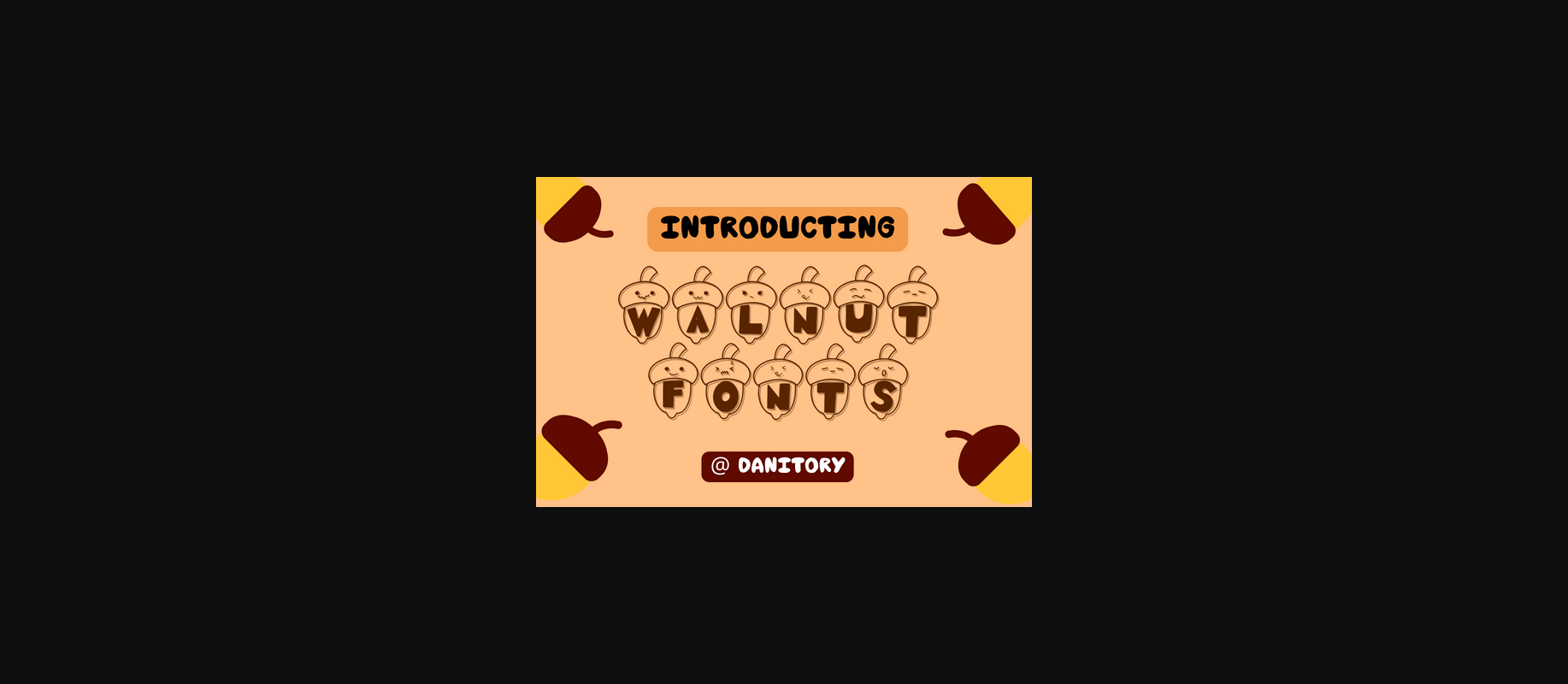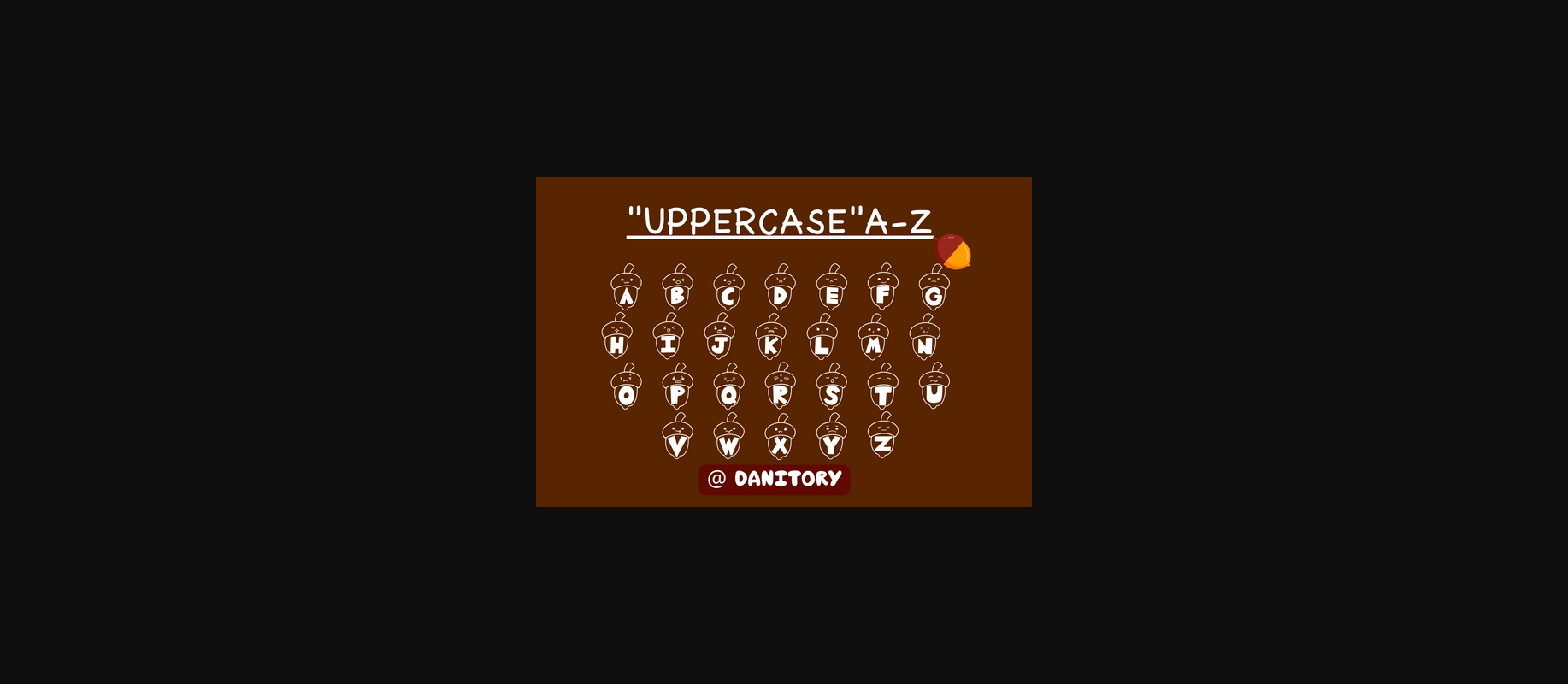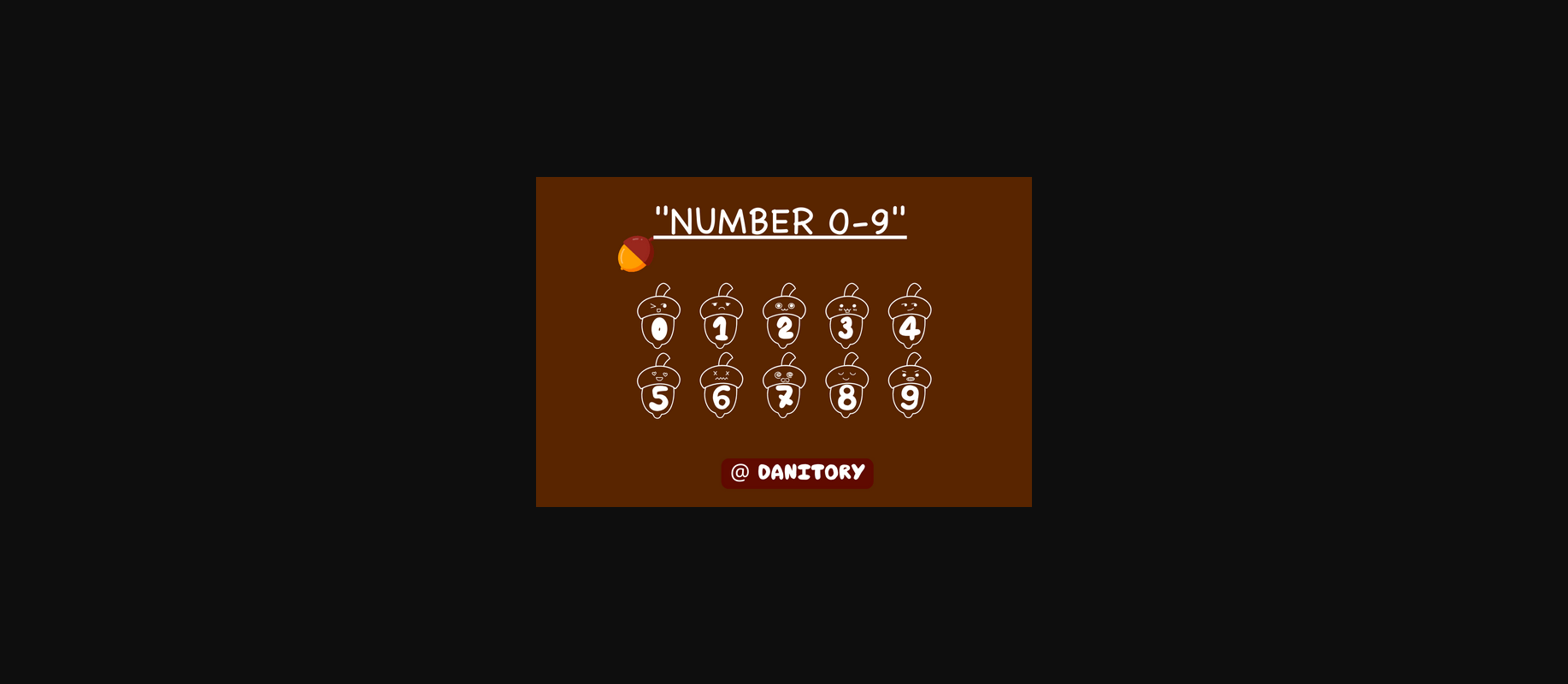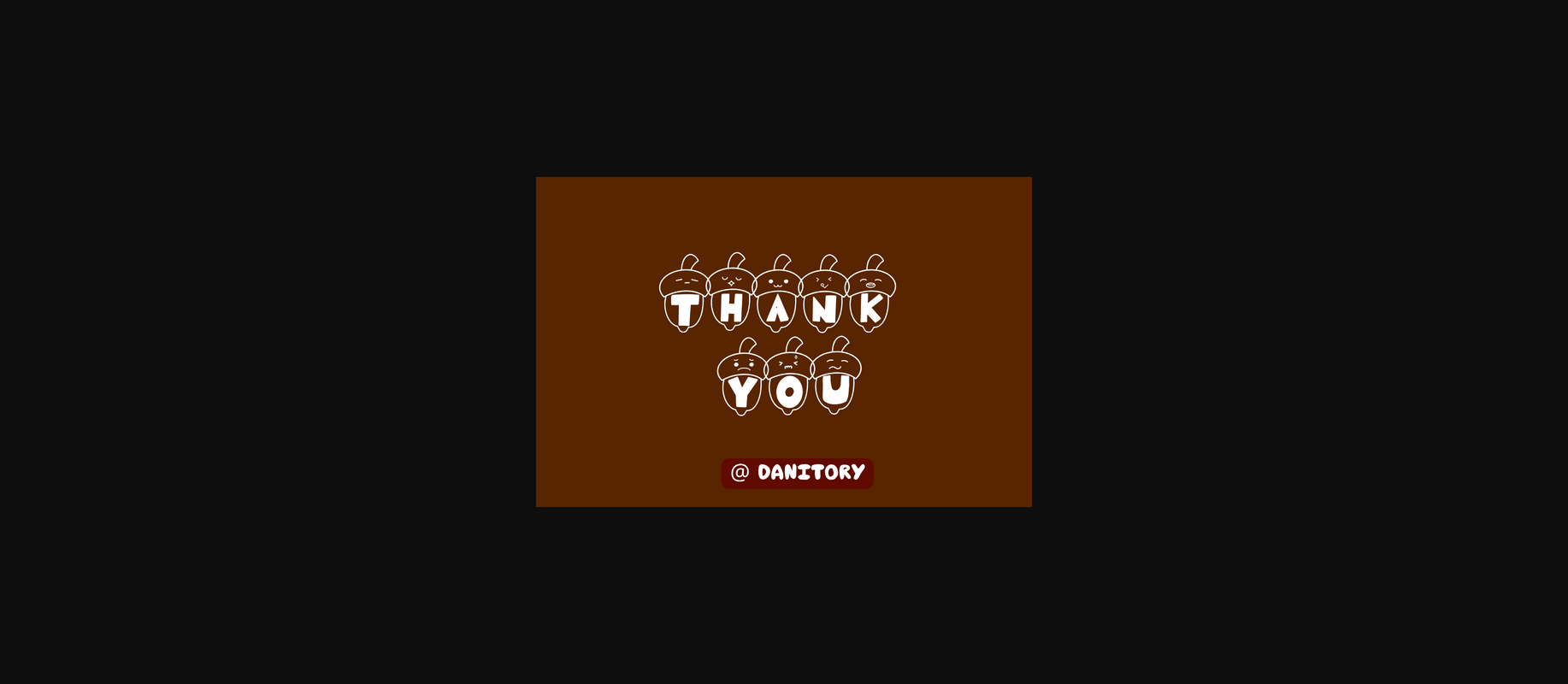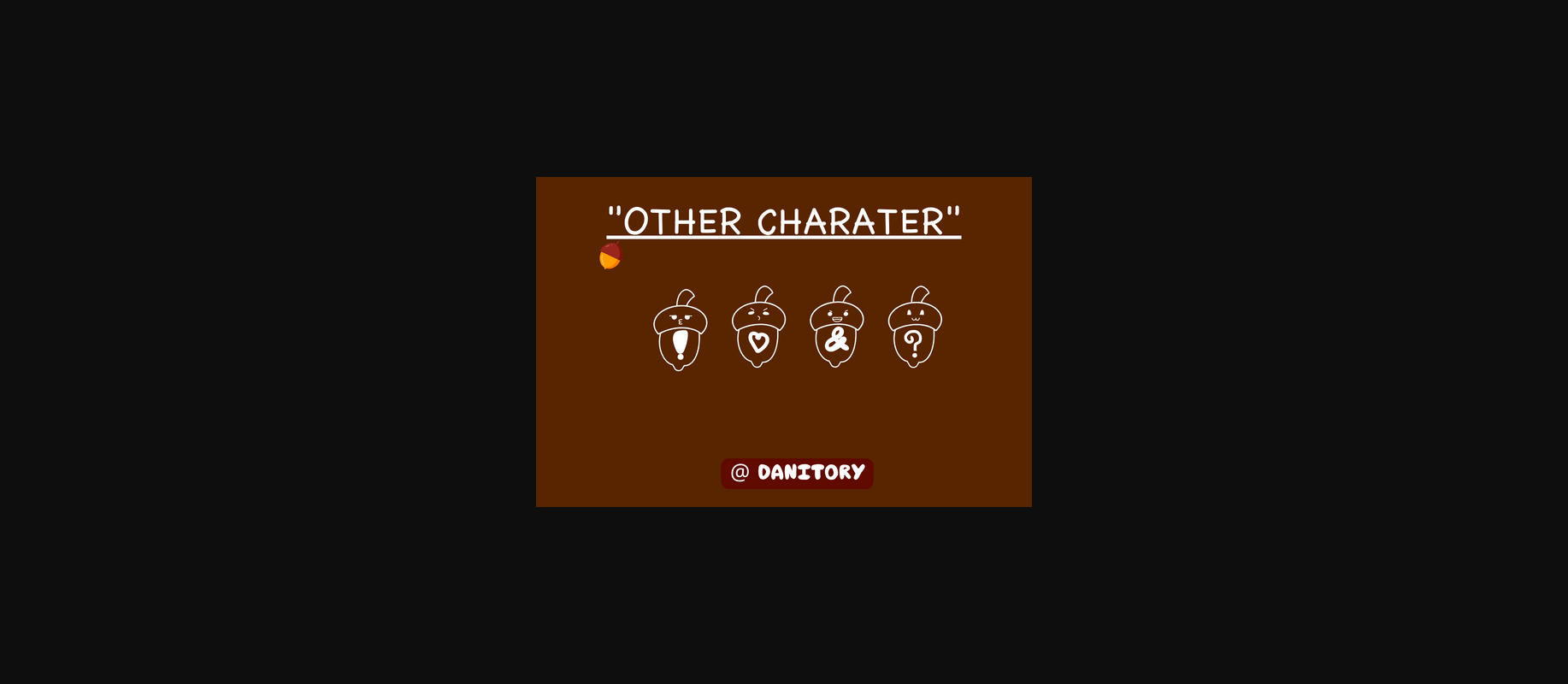
Walnut Font
About Walnut Font
Walnut is a stylish and cute decorative font. Whether you’re using it for crafts, digital design, presentations, or making greeting cards, this lovely font has the potential to become your favorite go-to font, no matter the occasion!